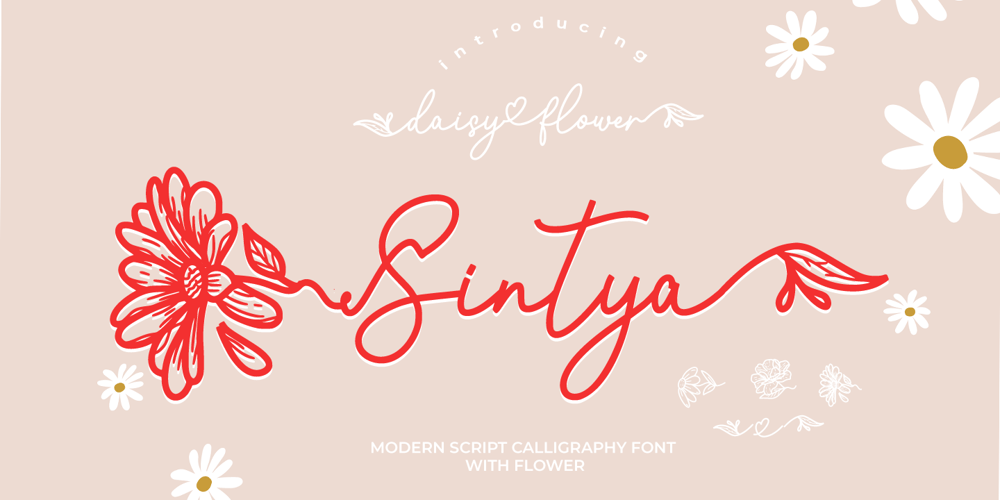
Sintya
Sintya font
Sintya Font Family was designed by Muhammad Zaini and published by Cocodesign. Sintya contains 1 styles and family package options. Sintya is a vintage styled script font carefully created with a touch of elegance. Whether you’re looking for fonts for Instagram or calligraphy scripts for DIY projects, this font will turn any creative idea into a true piece of art!